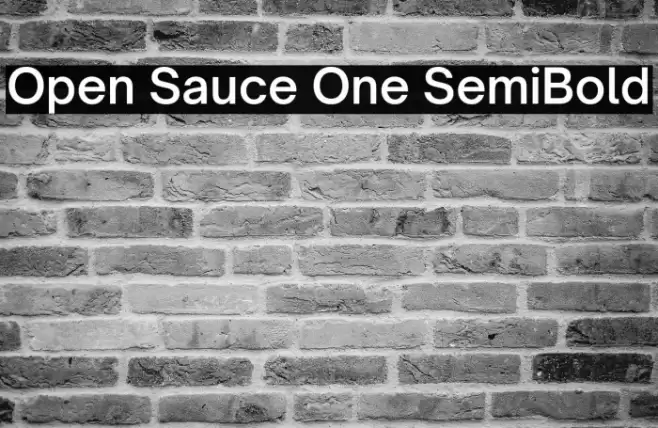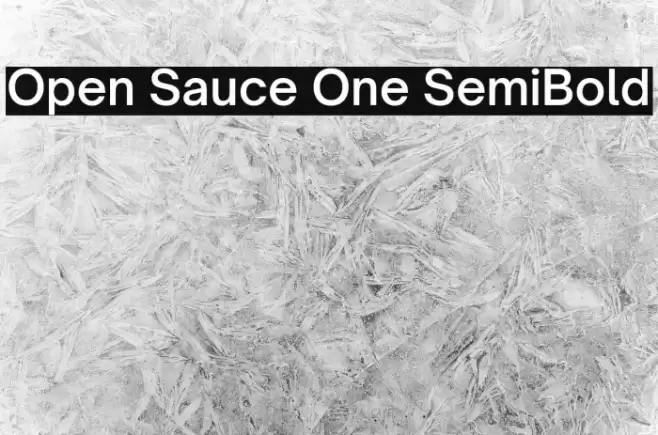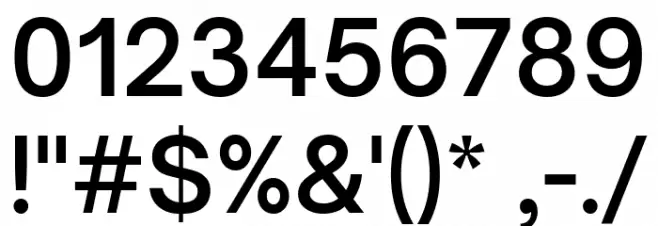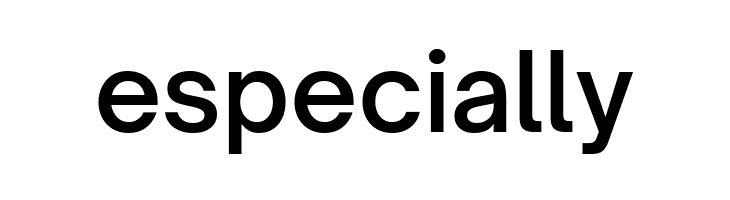
Open Sauce One SemiBold Font
Open Sauce One SemiBold Description
This typeface exhibits a clean and modern sans-serif style, characterized by its semi-bold weight that provides a strong yet approachable appearance. The letters are well-proportioned with a consistent stroke width, contributing to its legibility across various sizes. The design is straightforward and uncluttered, making it suitable for both digital and print media. Its geometric shapes and balanced structure give it a contemporary feel, while the slightly rounded edges add a touch of warmth. The numerals and special characters are designed to match the overall aesthetic, ensuring a cohesive look throughout.
A modern, semi-bold sans-serif font with clean lines and balanced proportions from Sans Serif fonts.